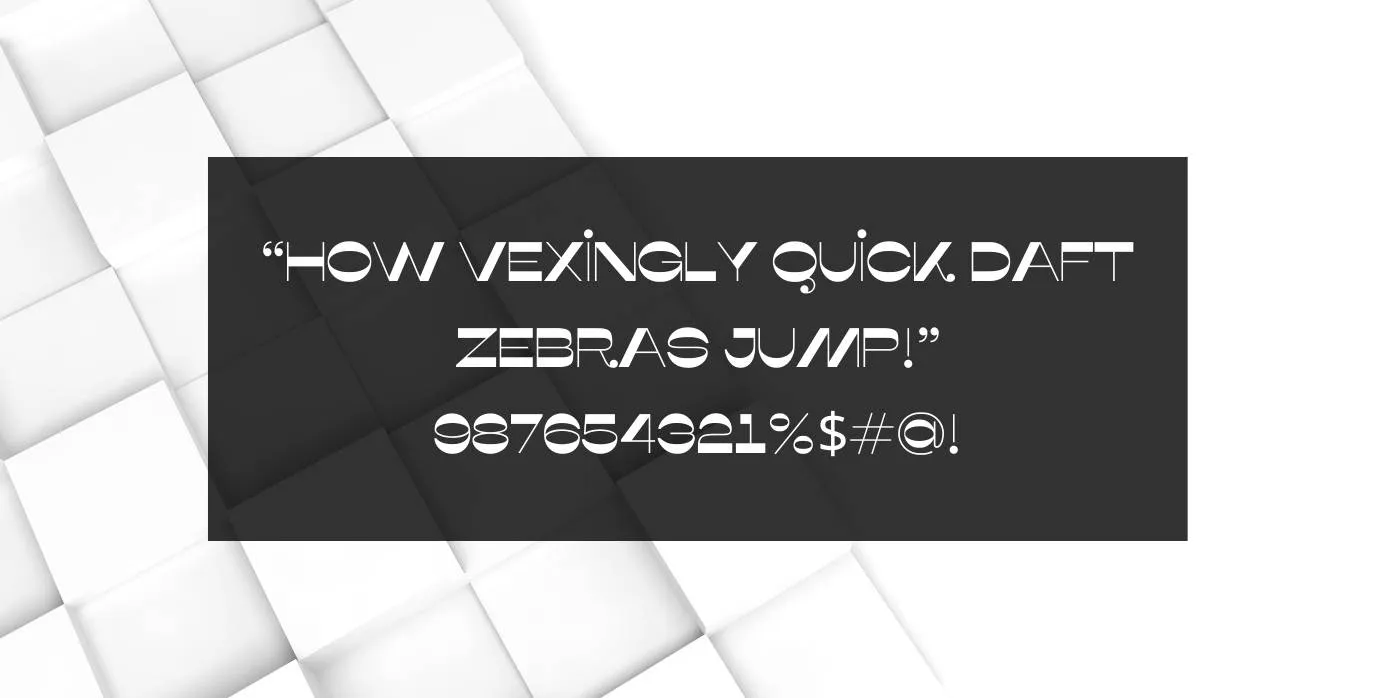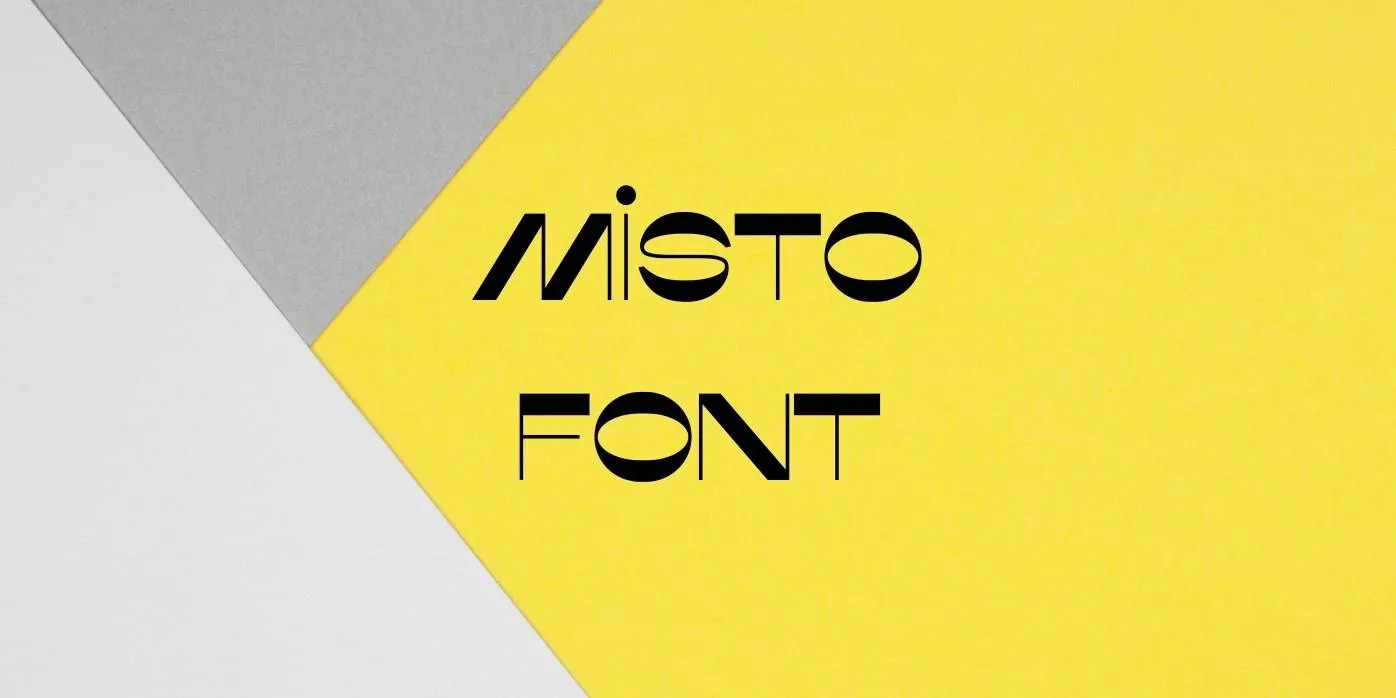
Misto Font
Misto Font belongs to the display font family and it is a versatile typeface. The font was created by Kostas Bartsokas in 2013. It has a unique style that makes it perfect for headlines, posters, and other display purposes. This stylish and classy font family consists of 6 different styles: Regular, Italic, Bold, Bold Italic, Black, and Black Italic.